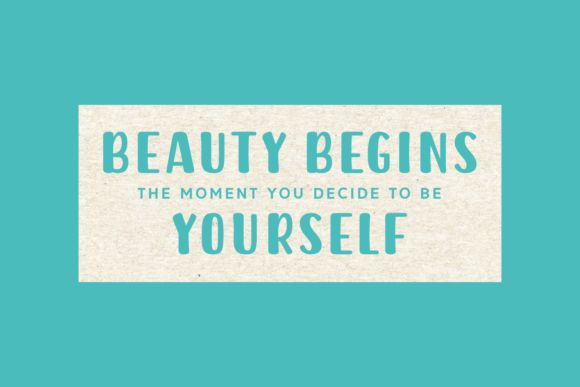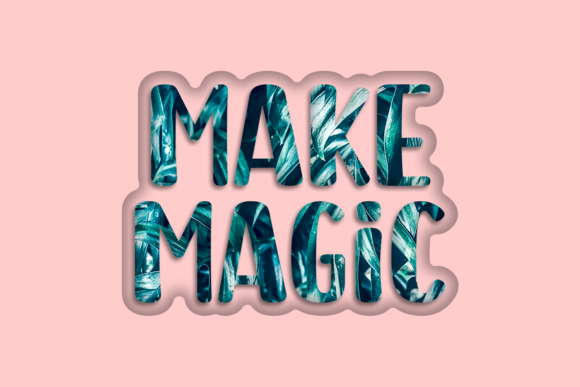
Lodger Friend Font
About Lodger Friend Font
Lodger Friend is a cool, paint brushed handwritten font. It is adaptable and matches a wide range of creations. Every letter has a unique and beautiful touch, which will make your design come alive!